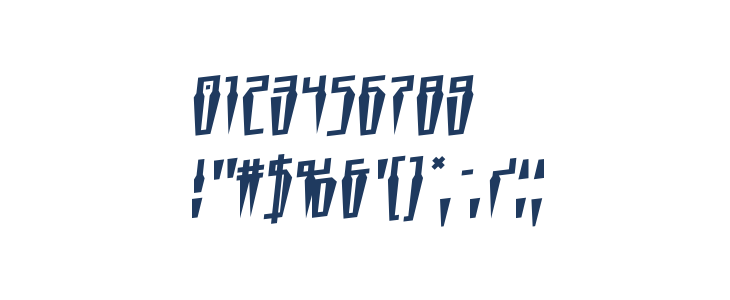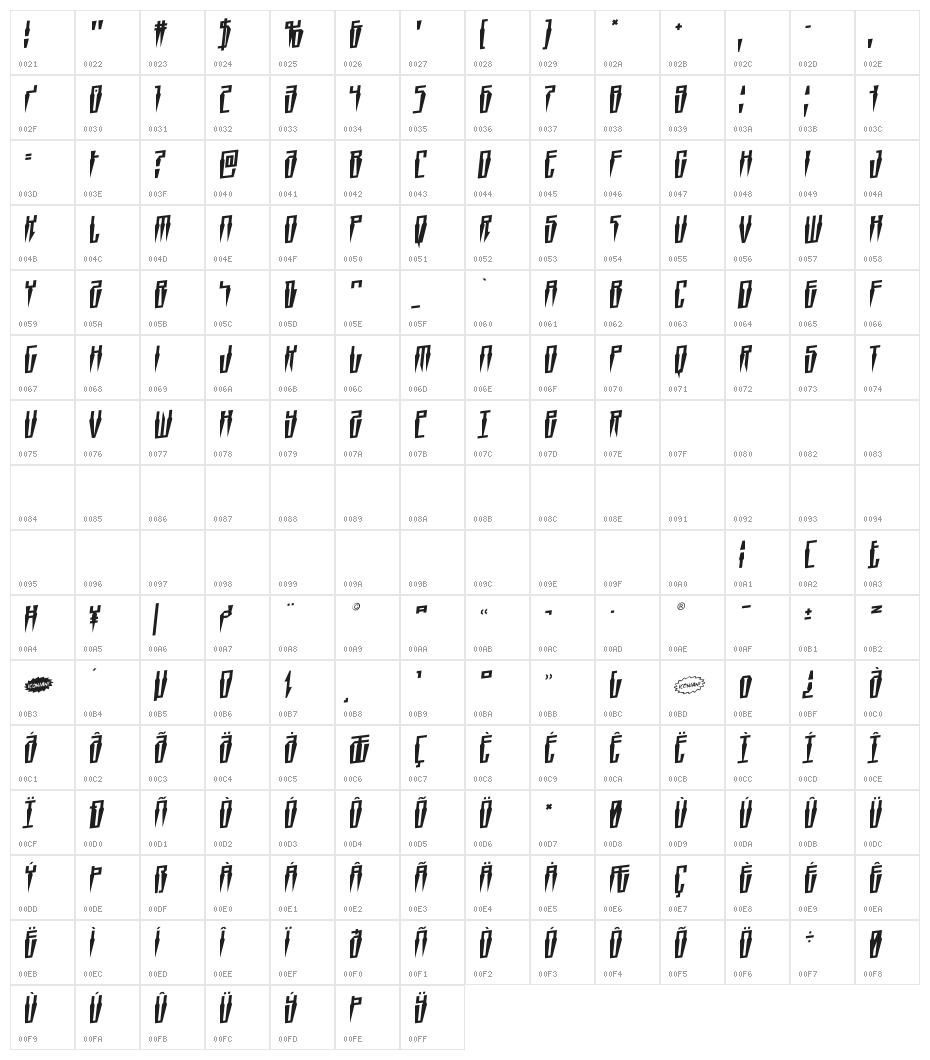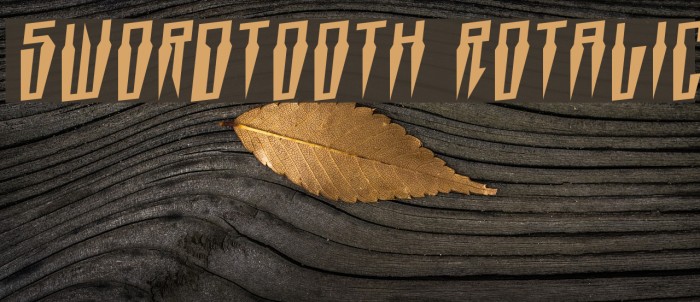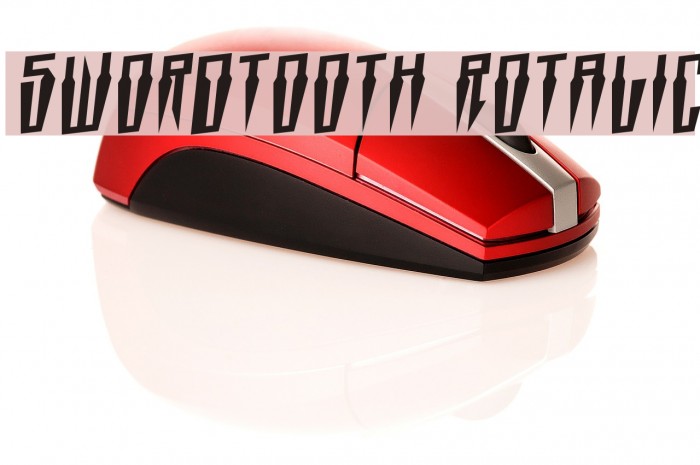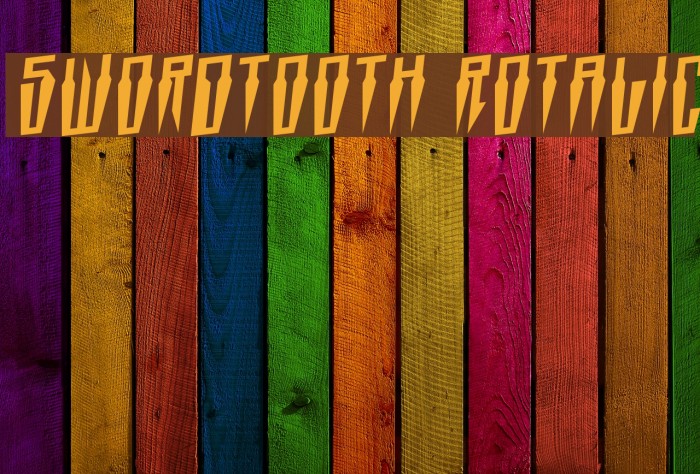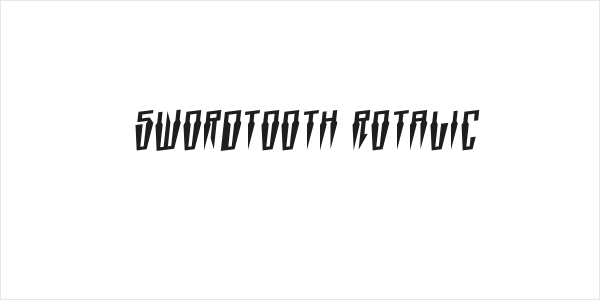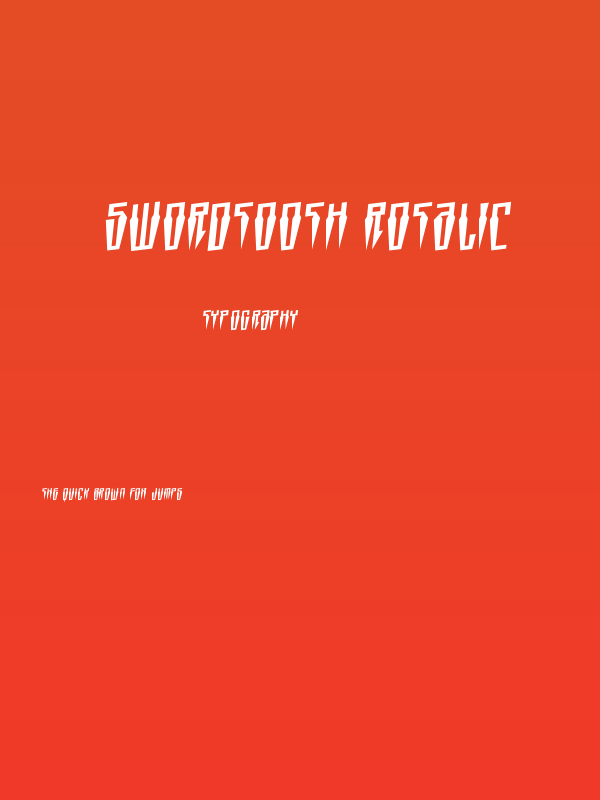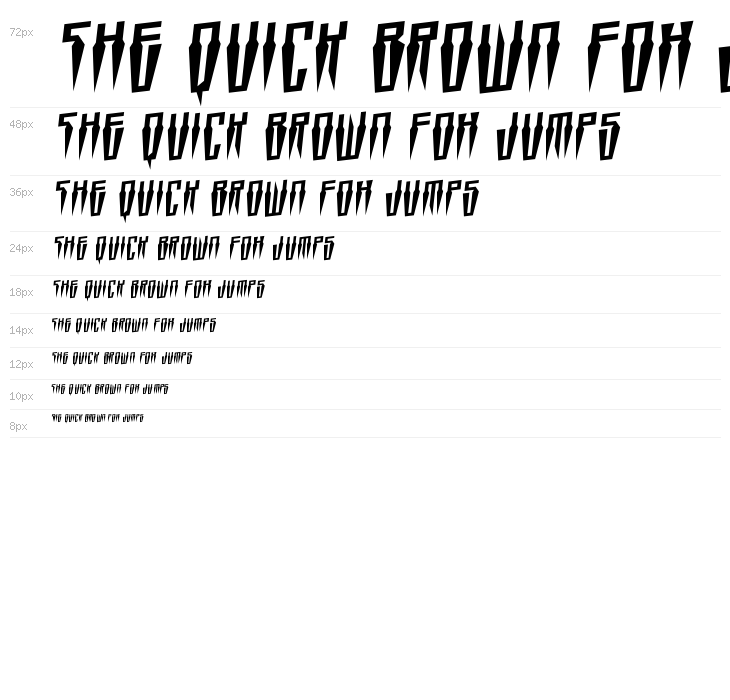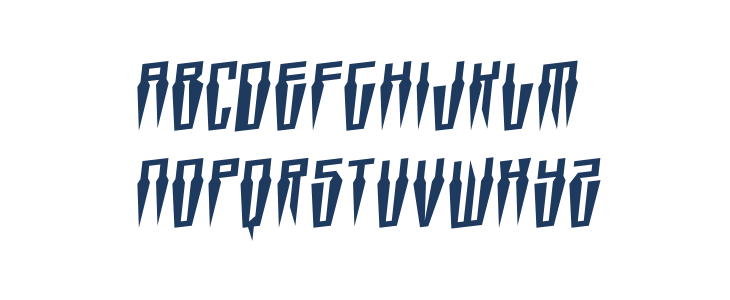
Swordtooth Rotalic Font
Swordtooth Rotalic Description
This font features a bold and aggressive style with sharp, angular edges that resemble the teeth of a sword. The characters are italicized, adding a dynamic and forward-leaning appearance. Each letter is uniquely designed with pointed serifs and a consistent angular theme that runs throughout the alphabet, numbers, and special characters. The font's distinct style makes it stand out, with a high contrast between the thick and thin strokes, enhancing its dramatic effect. The spacing between characters is tight, which contributes to its compact and cohesive look.
| Overall Style | Modern, Aggressive |
| Proposed Projects | Ideal for projects that require a bold and striking visual impact, such as video game titles, movie posters, or branding for edgy products. |